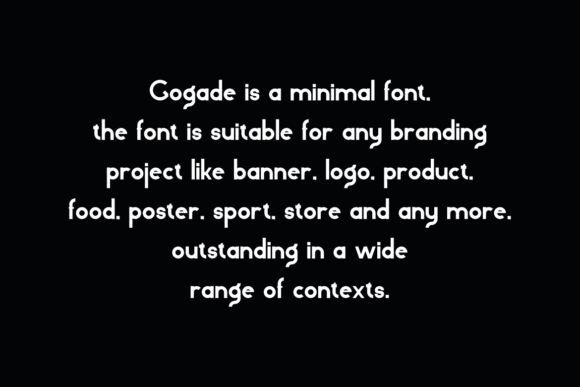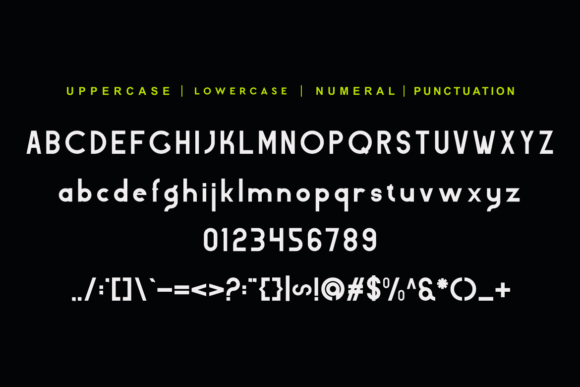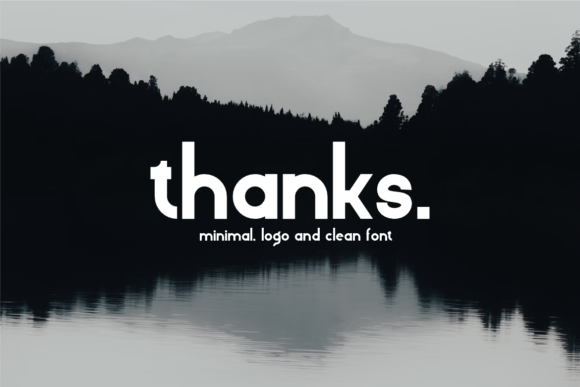
Unlock the Power of Gogade Font
Remember the thrill of staring at a blank canvas, waiting for inspiration to strike? For designers, it’s that moment of clarity when the perfect font comes together with a concept, elevating a project from mere mortal to something truly extraordinary. One such game-changer is the Gogade Font, a bold and assertive sans serif font that’s about to revolutionize your creative process.
Whether you’re working on a high-profile design project or a personal creative endeavor, the Gogade Font is an invaluable design resource that can breathe new life into your work. Its versatility and high quality make it an asset to any font library, allowing you to experiment with different styles and themes. And the best part? You can download it for free, perfect for designers on a budget or those who want to test the waters before committing to a paid option.
With the Gogade Font, you’ll have the freedom to create stunning visuals with a transparent background, taking your designs to the next level. Say goodbye to bland, generic fonts and hello to a world of limitless possibilities. Get ready to unleash your creativity with the Gogade Font and discover a new dimension of design excellence.
Key Features of Gogade Font
- High-quality design resource ideal for creative projects, offering a unique aesthetic.
- Comes with a transparent background, making it versatile for use in various design contexts.
- Features a clean and modern design, suitable for a wide range of creative applications.
Honest Review: Gogade Font
I recently stumbled upon the Gogade Font while searching for the perfect design resource for my next creative project. I must say, it has been a game-changer for my work.
- ✨ Unique style that stands out in any design
- ✨ Highly legible, making it perfect for both digital and print media
- ✨ Supports transparent background, giving me more flexibility in my designs
- ⚠️ Limited character set, which may not be ideal for projects requiring extensive text
- ⚠️ Not ideal for projects requiring a bold, heavy font
Overall, I’m thoroughly impressed with the Gogade Font. It’s a high-quality design resource that has elevated my creative projects to the next level. If you’re looking for a unique and versatile font, I’d definitely recommend giving it a try.
Tips for Getting the Most Out of Gogade Font
Experiment with different font sizes and styles to achieve the desired visual effect. Use Gogade Font in combination with other design elements to create a unique and eye-catching design. Take advantage of the font’s transparent background feature to create complex and layered designs.
Gogade Font is ideal for creative projects such as logo design, branding, and advertising. Its high quality and unique design make it an excellent choice for designers and artists looking for a premium font resource. With its free download option, you can easily incorporate Gogade Font into your design workflow and elevate your creative projects to the next level.
Q: Does the Gogade Font include a transparent background option?
Yes, the Gogade Font includes a transparent background option, making it ideal for designers working on creative projects that require a high level of design flexibility.